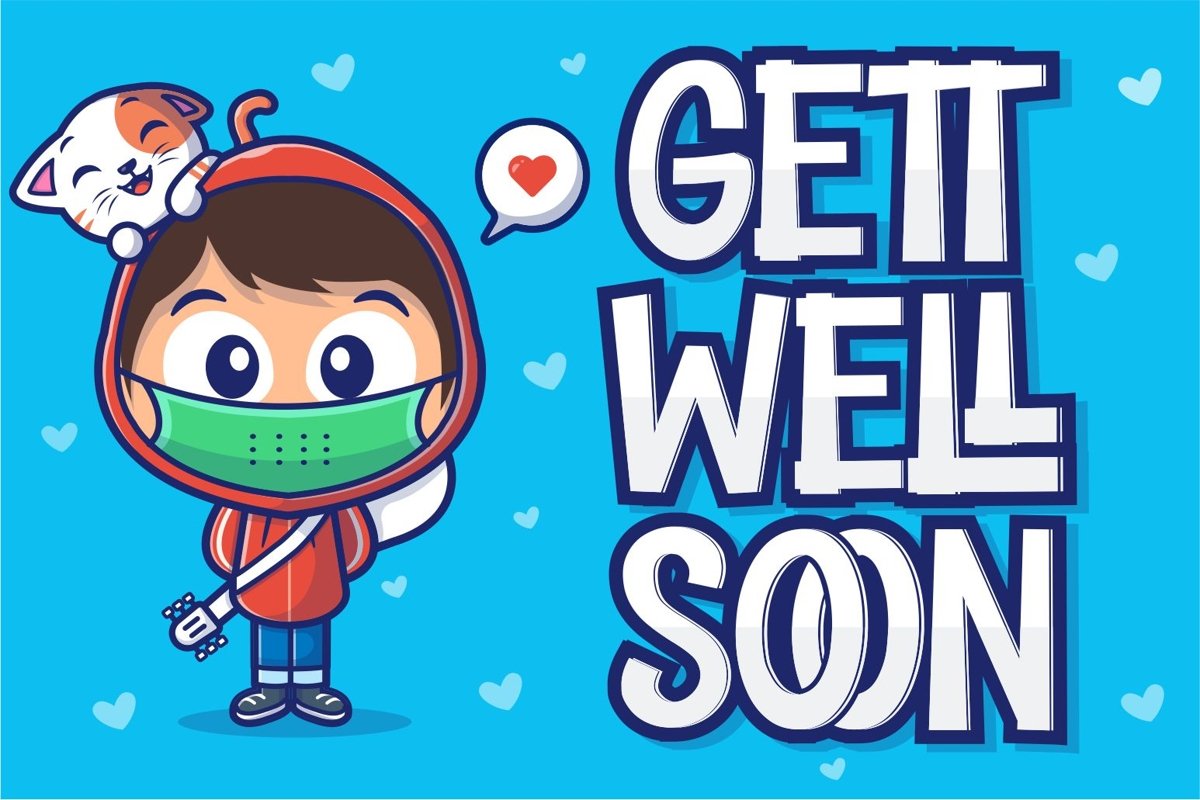
Gett Well Soon
Gett Well Soon is a cute and casual display font with an incredibly friendly feel. This is  is a bold display font, carefully handcrafted to become a true favorite. This font is the perfect fit for all of your logos, branding, social media, and crafty DIY projects.